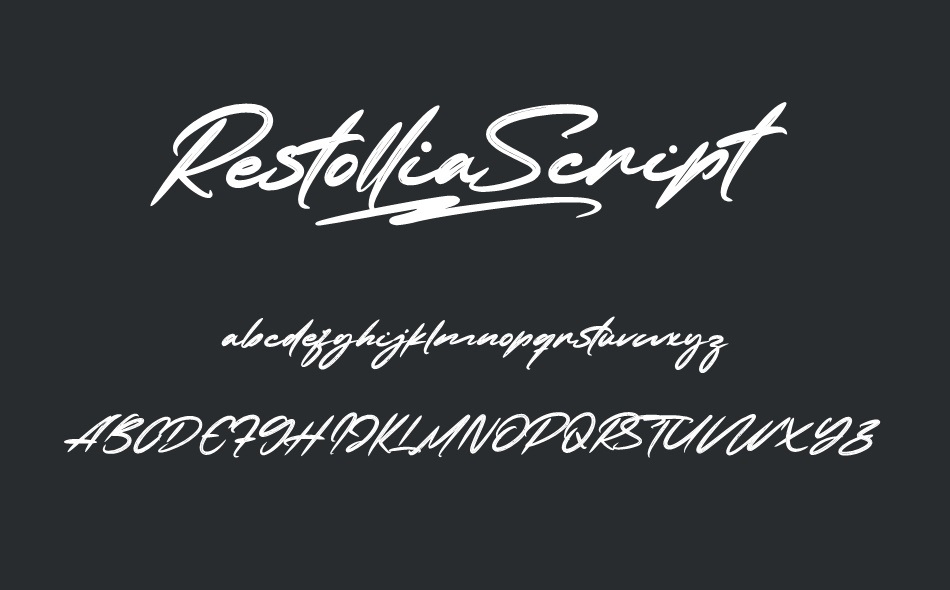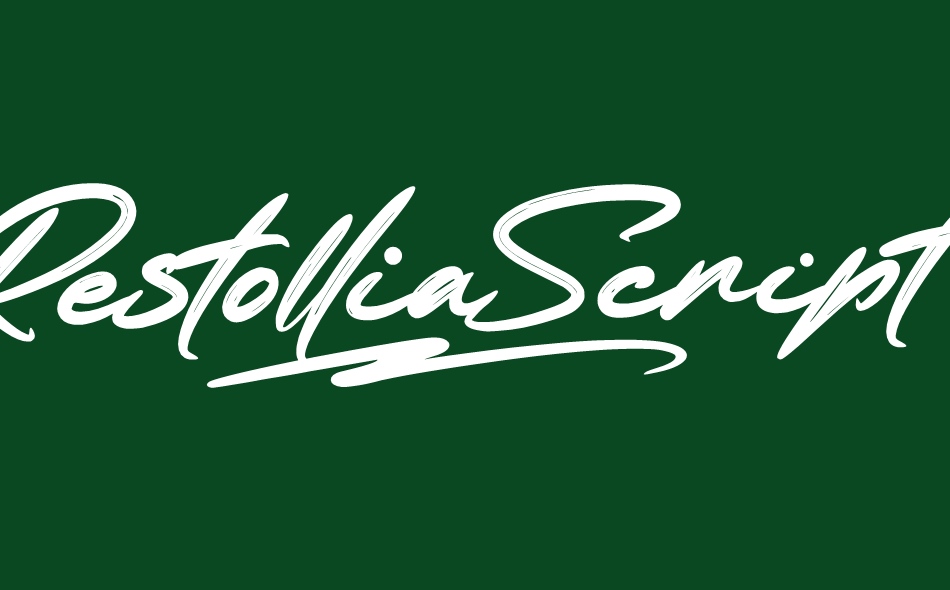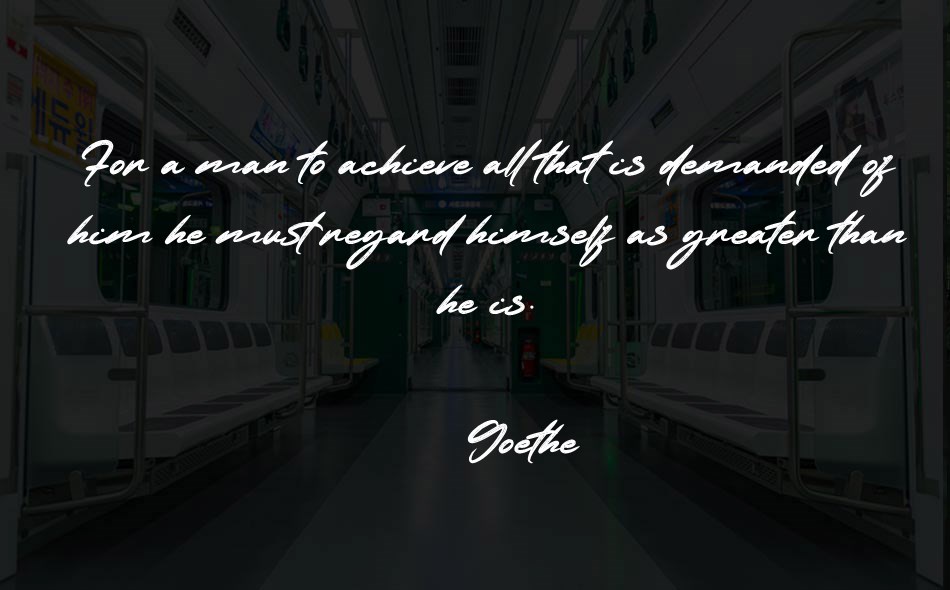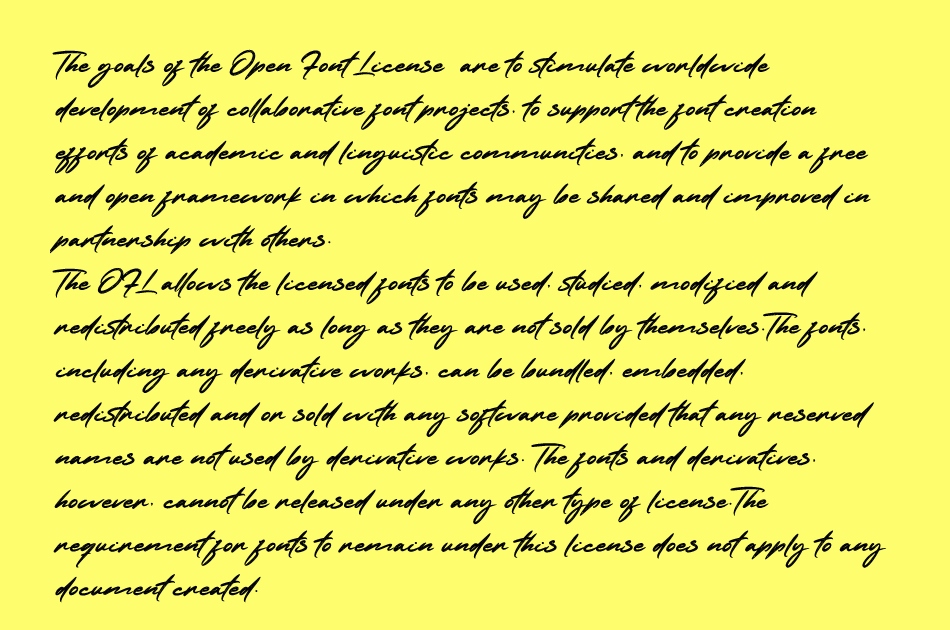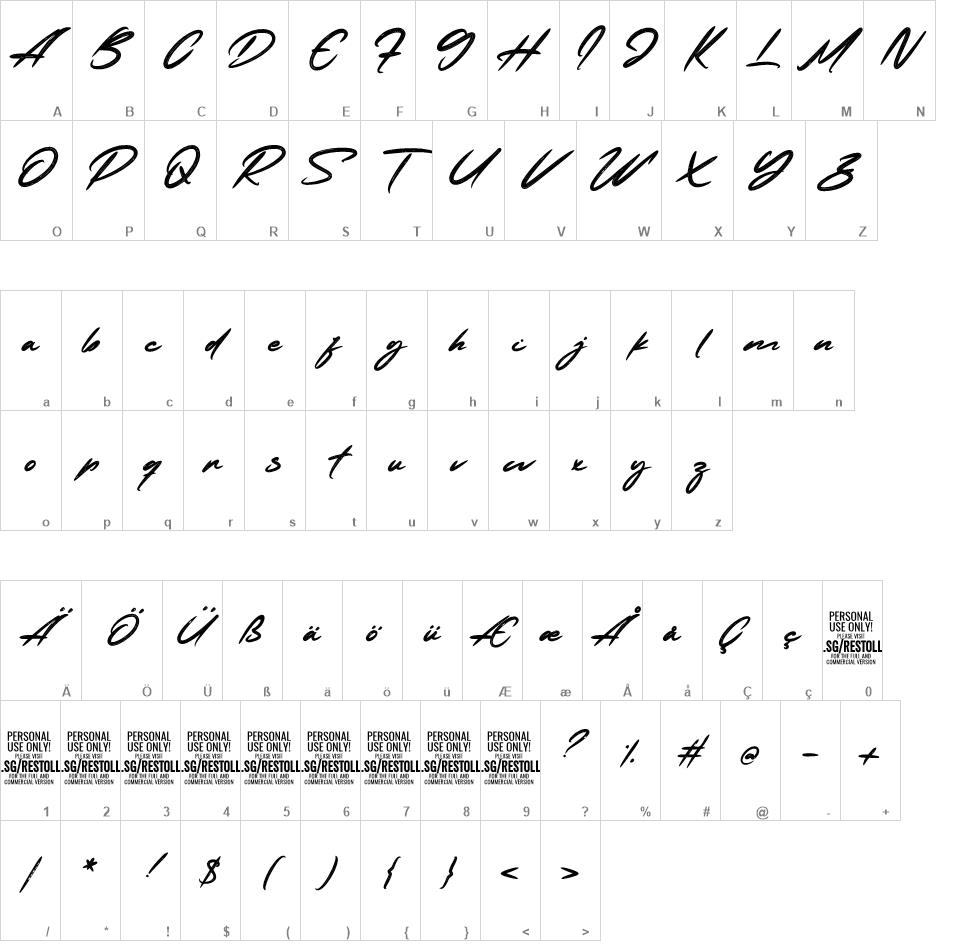
Restollia Script font
Use underscore _ anywhere in a word to make a swash.
Example: Letter_ings
Use multiple underscores to make different swashes.
Example: Hand________written
Restollia Script is a flowing script typeface.
Use underscore _ anywhere in a word to make a swash.
Example: Letter_ings
Use multiple underscores to make different swashes.
Example: Hand________written
In a calligraphic style, this handwritten font is the perfect font for a rustic logotype in a cursive style, with its brushed letterforms and vivid personality.
The font is built with advanced OpenType functionality and has a guaranteed top-notch quality, containing stylistic and contextual alternates, ligatures and more features; all to give you full control and customizability.
It has extensive lingual support, covering all Latin-based languages, from Northern Europe to South Africa, from America to South-East Asia.
It contains all characters and symbols you'll ever need, including all punctuation and numbers.